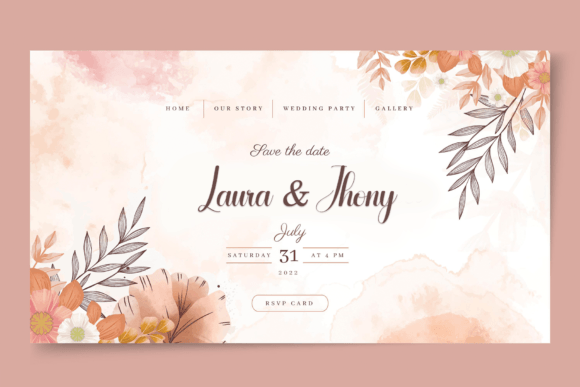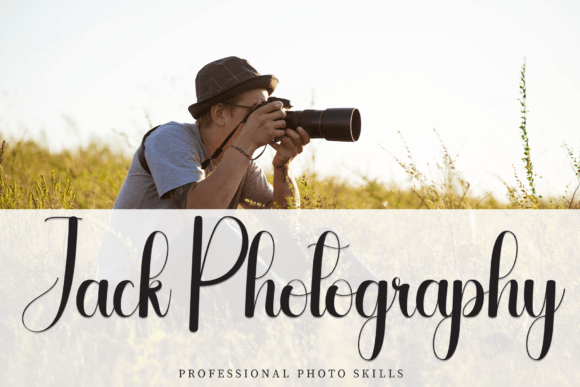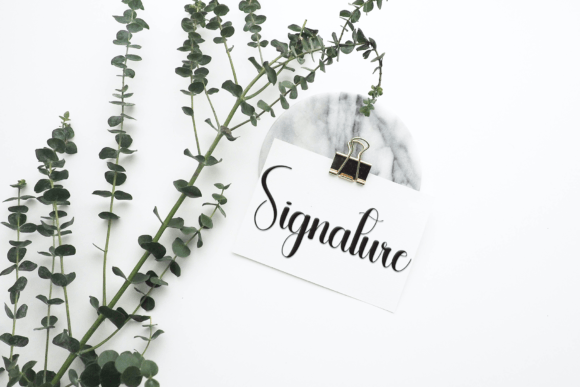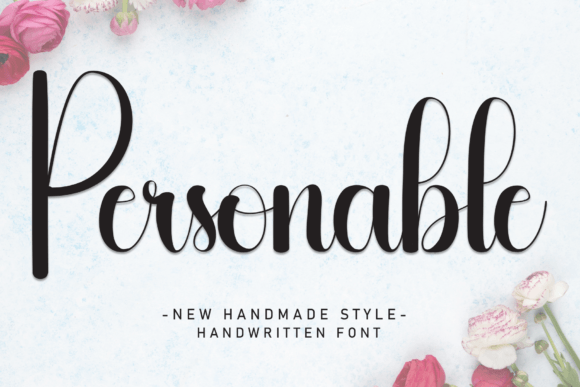
Introduction to Personable Font
Personable is a sweet and friendly handwritten font.
Cute and fun, this font is ideal for writing wedding invitations, cards, or any other design that might need a fun touch .